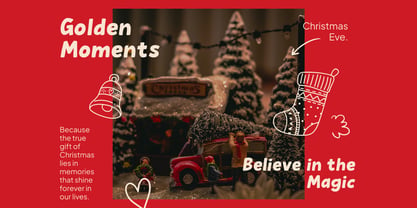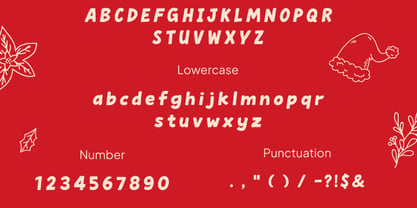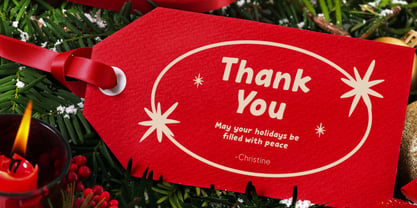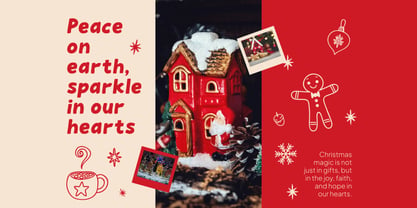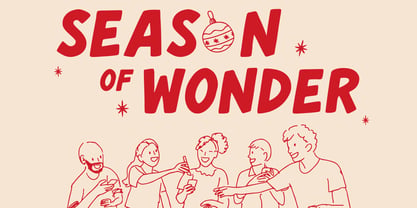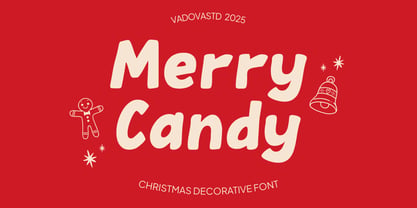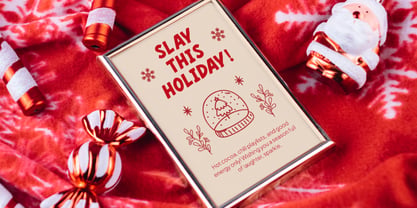
Merry Candy
by Vadova Std
The Merry Candy Font Family was designed by and published by Vadova Std. Merry Candy contains 1 styles. More about this family
Merry Candy is a festive decorative font designed to capture the magic of the holiday season. With its playful curves, soft rounded edges, and joyful hand-drawn style, Merry Candy brings a cozy, cheerful vibe to your Christmas-themed designs. This font includes uppercase, lowercase, numbers, and essential punctuation. Perfect for greeting cards, holiday merch, children's crafts, packaging, and social media graphics. Its informal and warm tone makes it ideal for family-oriented or fun-loving projects. Merry Candy is highly relevant for seasonal creative projects, especially around Christmas and New Year. It's ideal for use in personal holiday greetings, festive merchandise, children-focused branding, party invitations, and digital content that needs a touch of warmth and cheer. Its playful look adds personality and charm to any design.